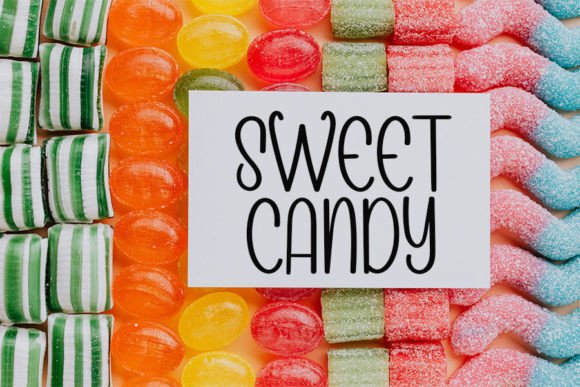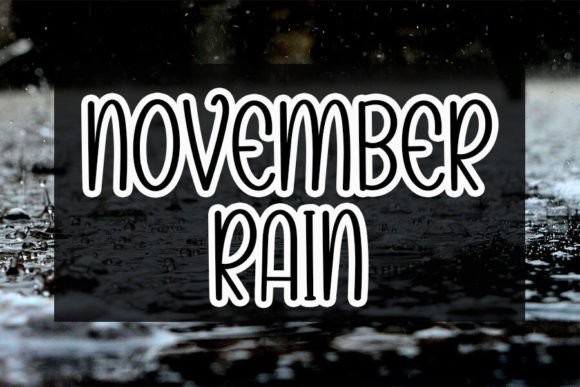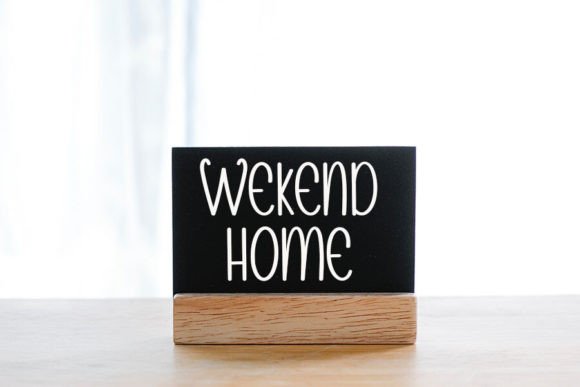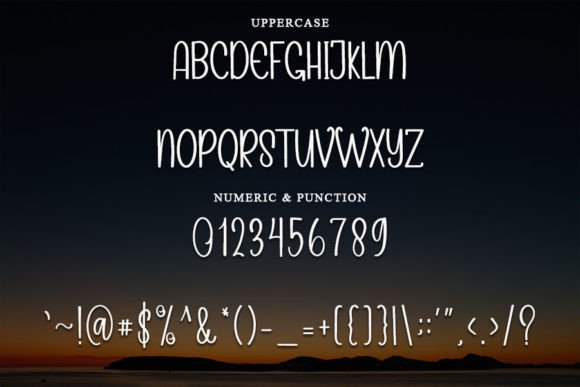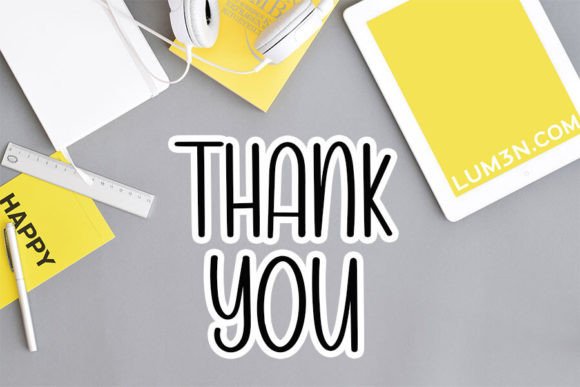
Bird House Font: Elevate Your Designs with Elegance and Timeless Style
Are you on the lookout for a font that can add a touch of sophistication and elegance to your designs? Look no further than the Bird House Font, a beautiful display font that is sure to capture your heart. With its distinct and timeless style, this font is perfect for designers and crafters who want to create spectacular designs that stand out from the crowd.
What is Bird House Font?
Bird House Font is a carefully crafted display font that boasts an elegant touch, making it ideal for a wide range of projects. Whether you’re working on a logo, branding materials, or marketing collateral, this font is sure to impress. Its unique and classic style ensures that your designs will have a lasting impact on your audience.
Key Features of Bird House Font
- Elegant and Refined Design: Bird House Font features an incredibly distinct and elegant design that is sure to elevate your designs.
- Timeless Style: This font has a timeless quality that ensures your designs will remain stylish and relevant for years to come.
- Perfect for Display Purposes: With its beautiful and refined design, Bird House Font is perfect for display purposes, including headlines, titles, and more.
- Easy to Read and Understand: Despite its elegant design, Bird House Font remains easy to read and understand, making it a versatile choice for a wide range of projects.
Why Choose Bird House Font?
There are many reasons why Bird House Font is an excellent choice for designers and crafters. Here are just a few:
- Unique and Distinctive: Bird House Font has a unique and distinctive style that sets it apart from other fonts.
- Highly Versatile: This font can be used for a wide range of projects, from logos and branding materials to marketing collateral and more.
- Elegant and Sophisticated: Bird House Font adds an elegant and sophisticated touch to any design, making it perfect for projects where you want to make a lasting impression.
How to Use Bird House Font
Using Bird House Font is easy. Here are a few tips to get you started:
- Pair it with Other Fonts: Bird House Font works well when paired with other fonts. Try pairing it with a sans-serif font for a bold and eye-catching look.
- Use it for Headlines and Titles: Bird House Font is perfect for headlines and titles. Use it to add a touch of elegance and sophistication to your designs.
- Experiment with Different Colors: Bird House Font looks great in a variety of colors. Experiment with different colors to find the one that works best for your design.
Who Can Benefit from Bird House Font?
Bird House Font is perfect for a wide range of designers and crafters, including:
- Graphic Designers: Graphic designers can use Bird House Font to add a touch of elegance and sophistication to their designs.
- Crafters: Crafters can use Bird House Font to create beautiful and unique projects, such as handmade cards and gift tags.
- Marketers: Marketers can use Bird House Font to create eye-catching marketing collateral, such as brochures and flyers.